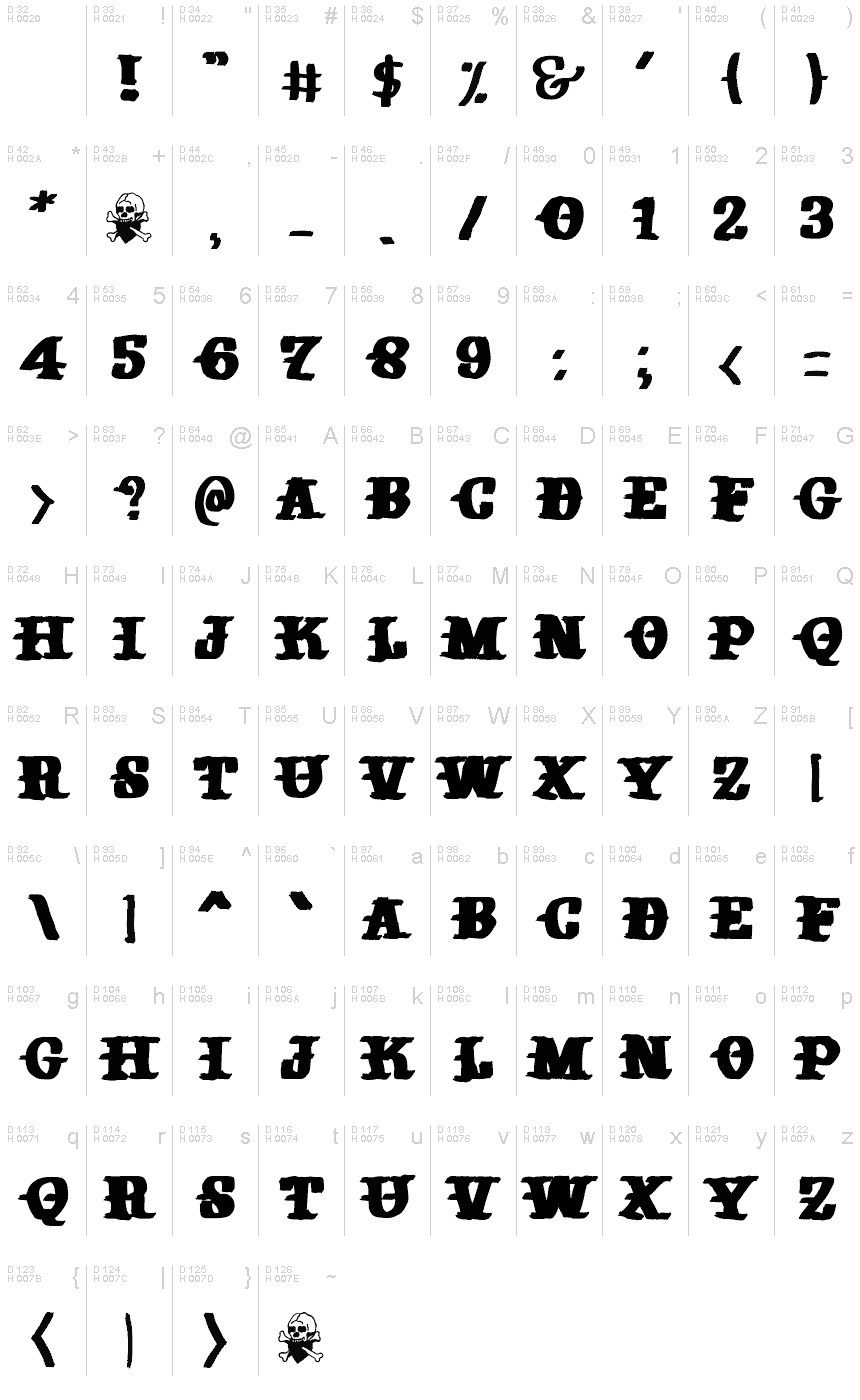
Old Sailor, a bold and captivating display font, exudes a rugged, nautical charm. Crafted by the skilled Woodcutter, this font masterfully blends vintage aesthetics with a modern sensibility. The distinct skull and crossbones motif, coupled with the weathered, distressed texture, evokes a sense of seafaring adventure and a bygone era.
Versatile in its applications, Old Sailor shines in diverse design contexts, from product packaging and advertising to editorial layouts and event branding. Its strong, commanding presence makes it an ideal choice for headers, titles, and attention-grabbing elements, lending an air of authenticity and character to any project. With its powerful visual impact, Old Sailor is sure to captivate audiences and leave a lasting impression.